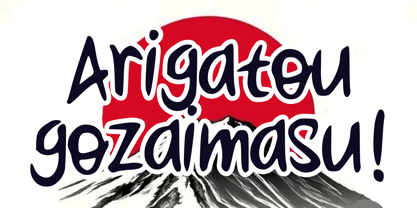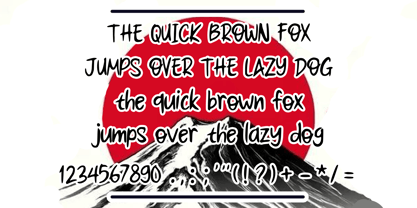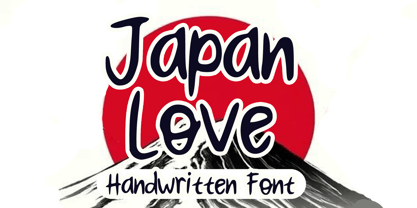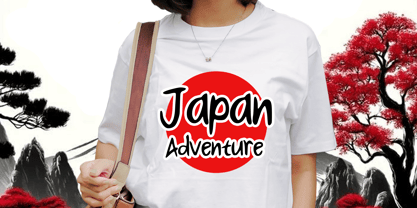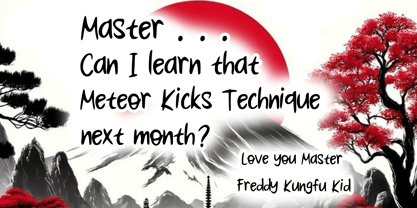
Japan Love
Die Schriftfamilie Japan Love wurde von Gabriel Valentinus entworfen und von Mvmet veröffentlicht. Japan Love enthält 1 Stile. Mehr über diese Familie
Japan Love is a beautiful and versatile japanese, asian handwritten display brush font. You can use it for anything ranging from t-shirts, book designs, and greeting cards to stickers and posters, packaging designs, or anything that needs a casual touch, it will be your perfect font to pick. Fall in love with its incredibly versatile style, and use it to create lovely designs!